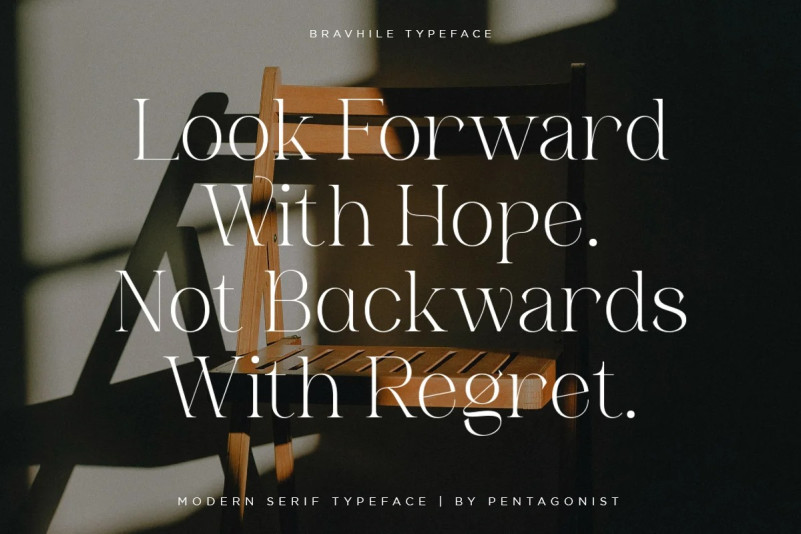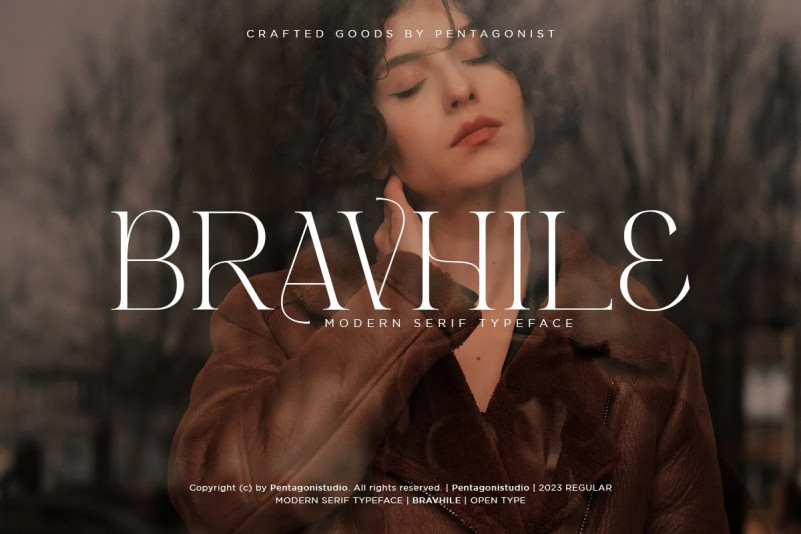
Bravhile Font
It’s time to see our impressive font, Bravhile Serif Font is a modern Serif typeface inspired by fashion and elegance. It can easily be matched to an incredibly large set of projects, so add it to your creative ideas and notice how it makes them stand out!